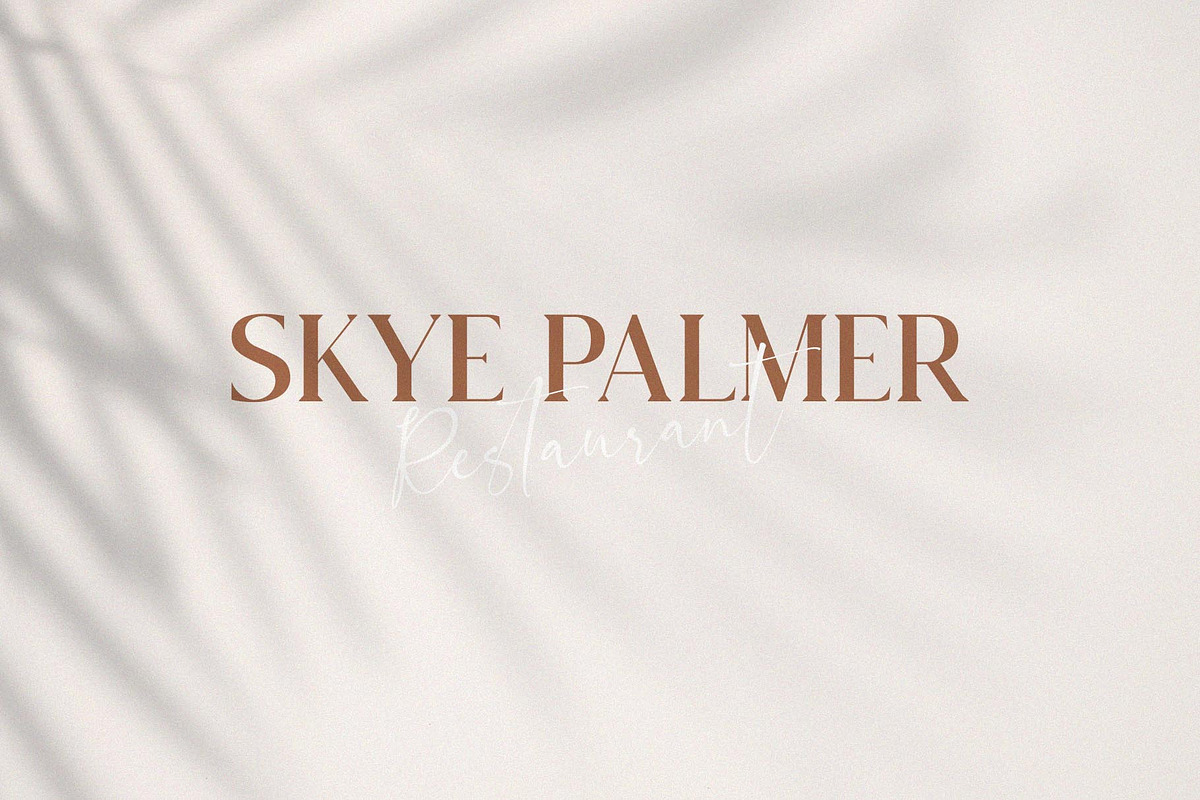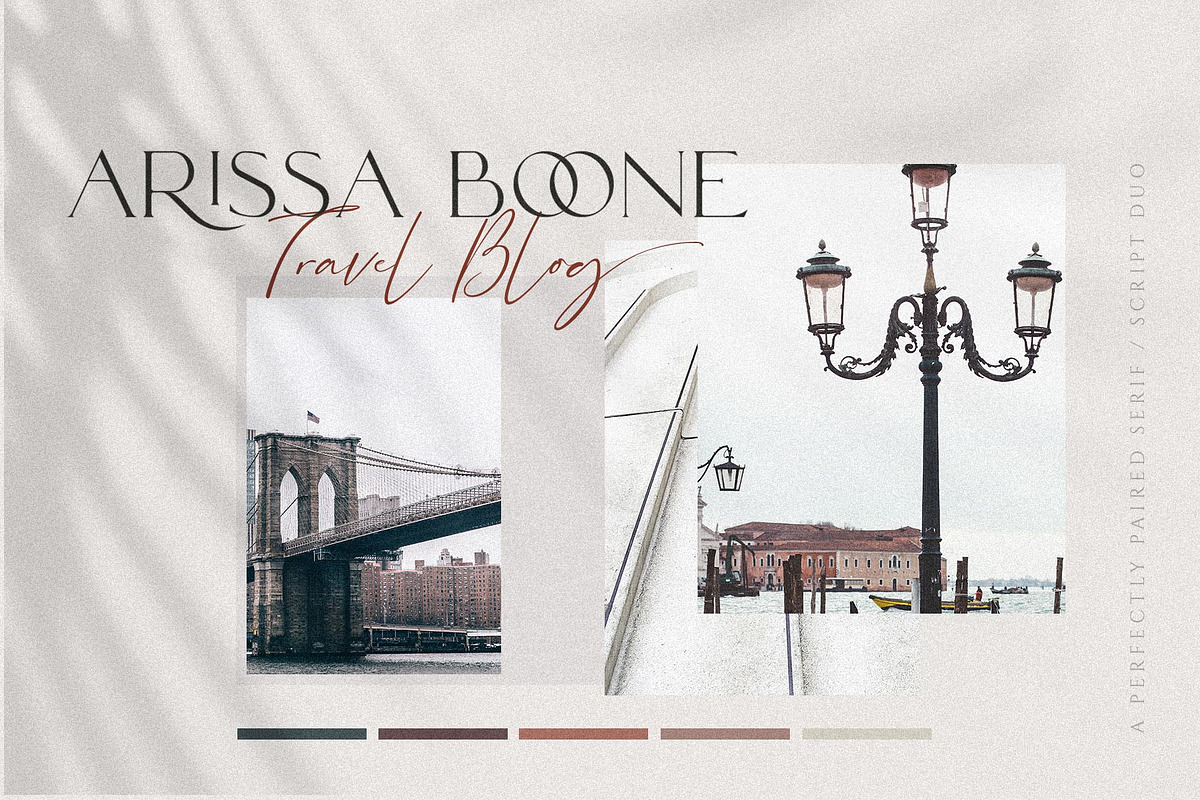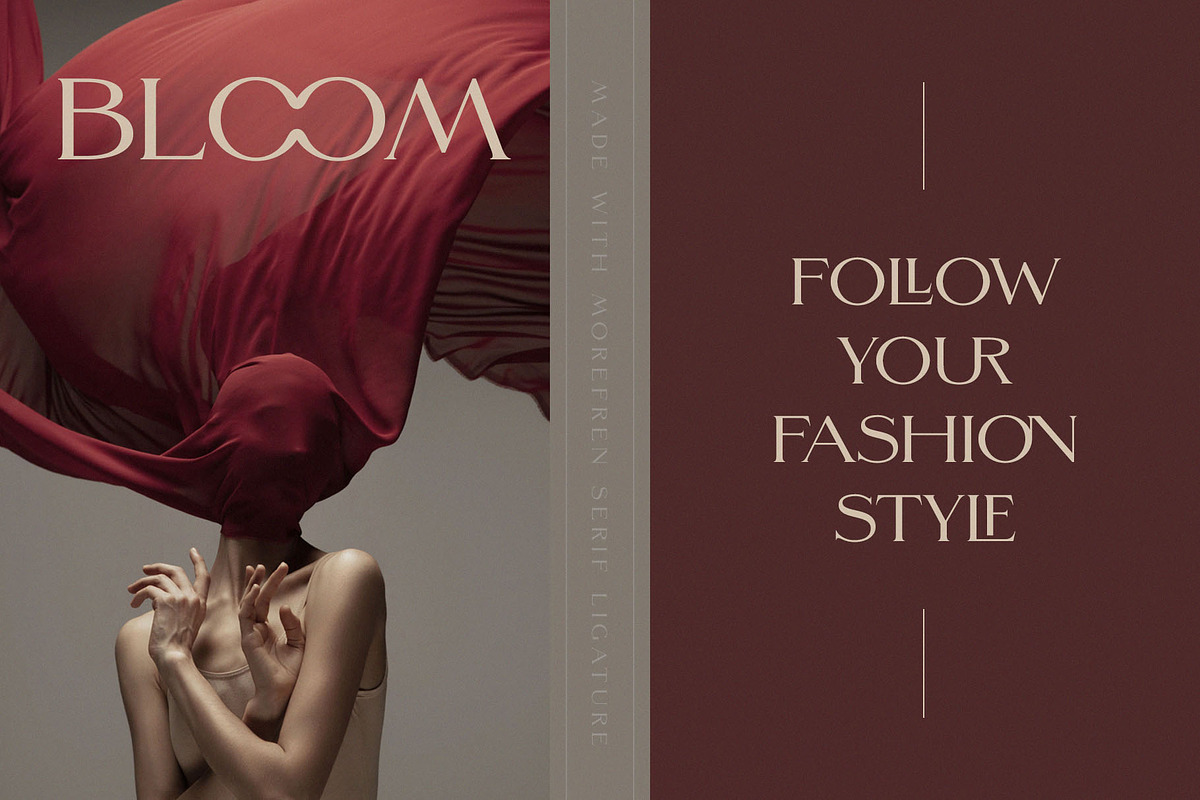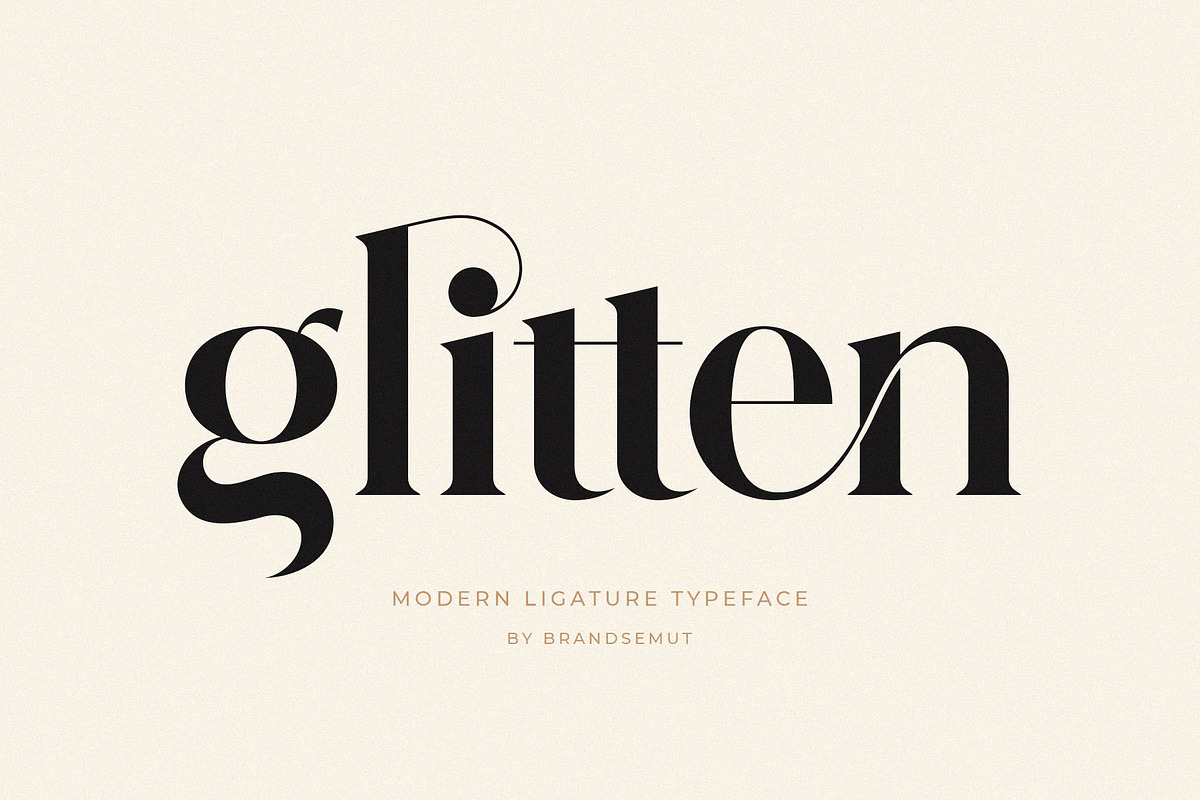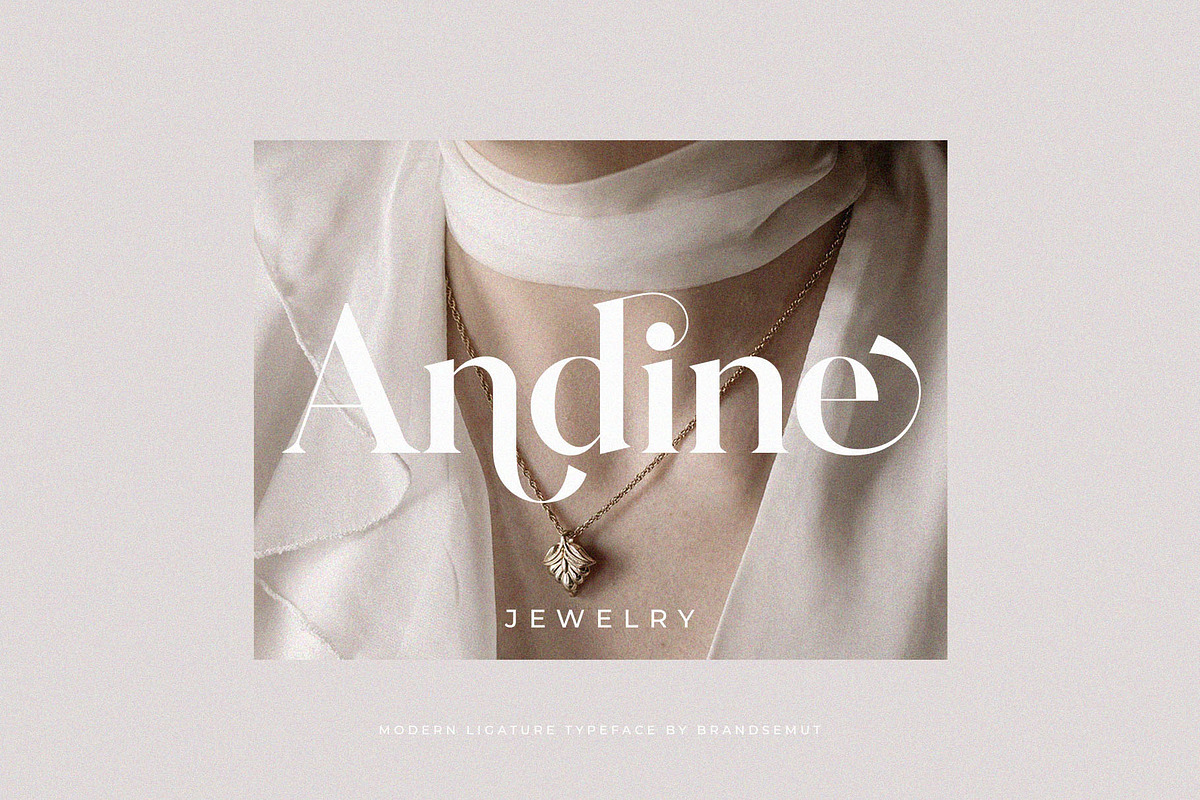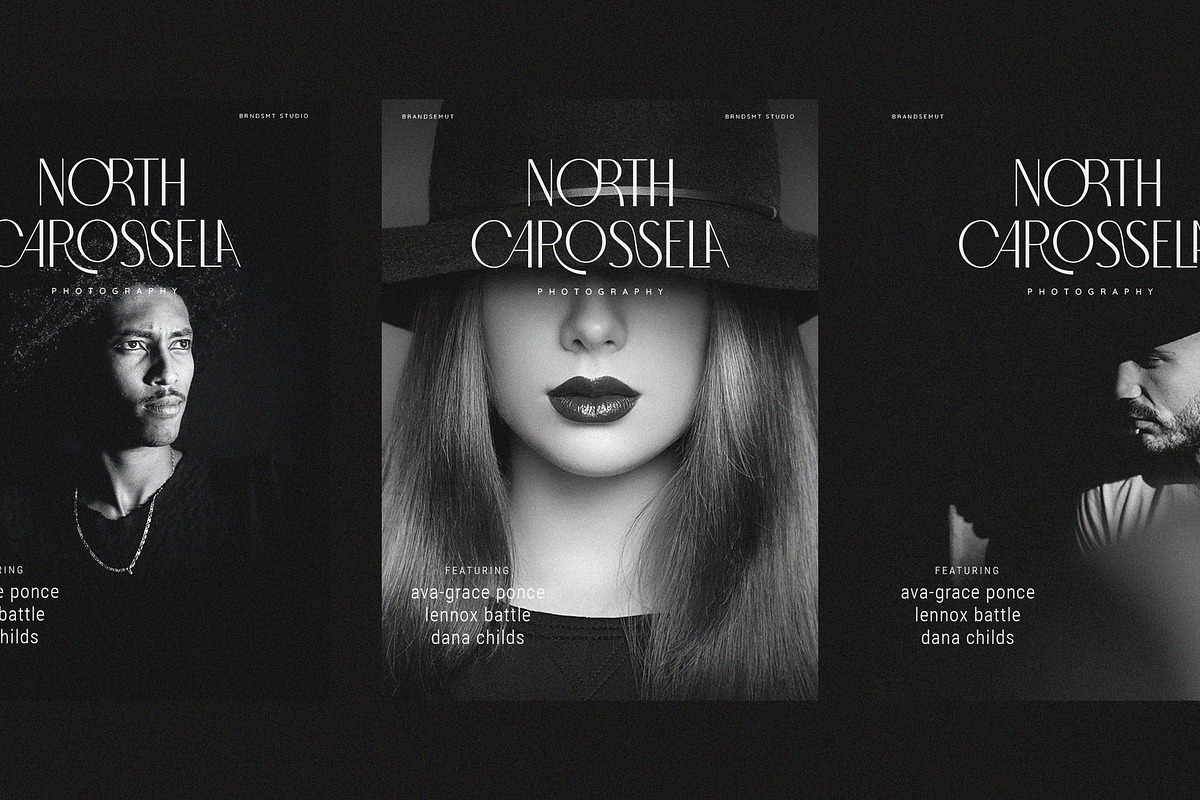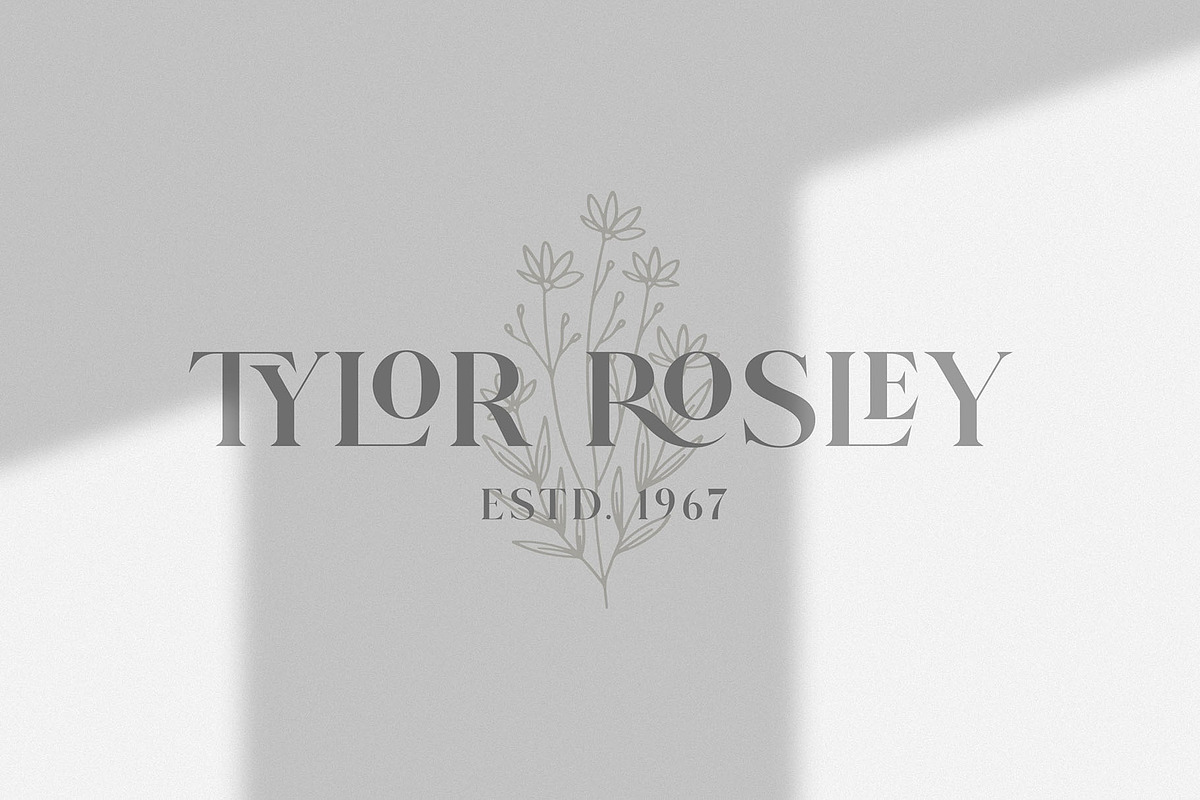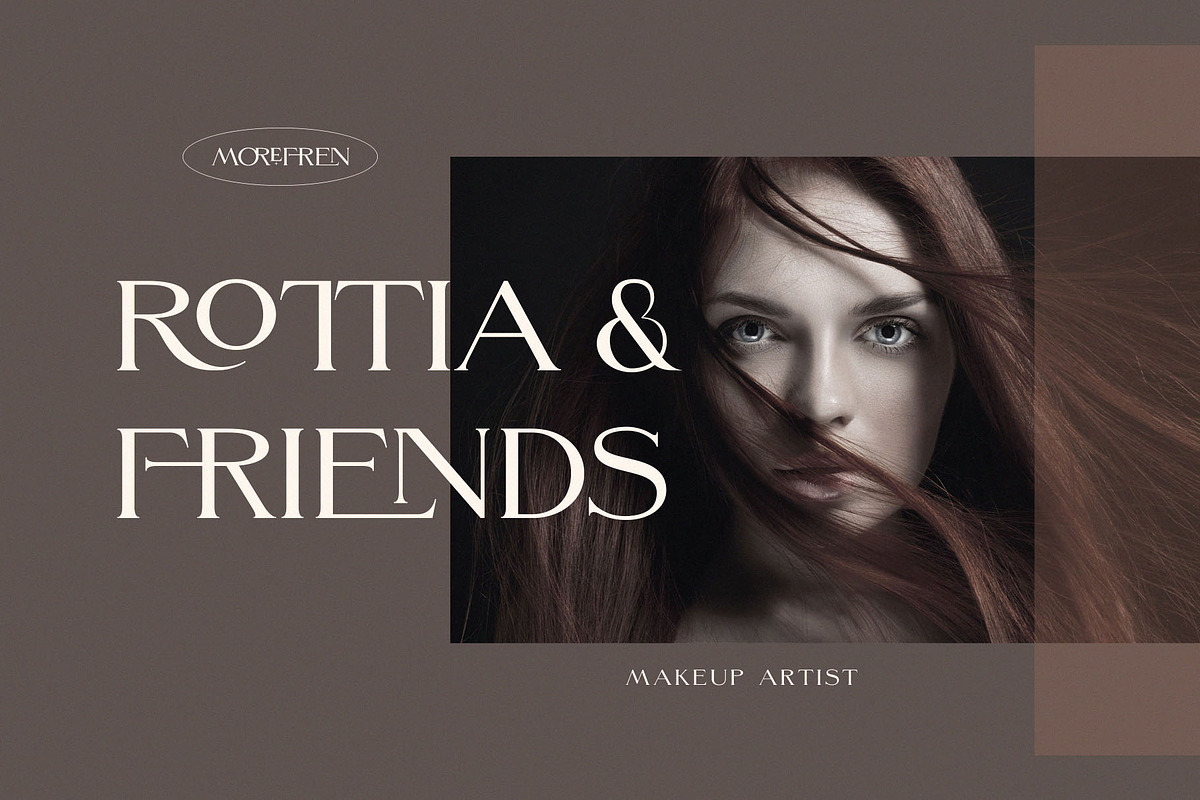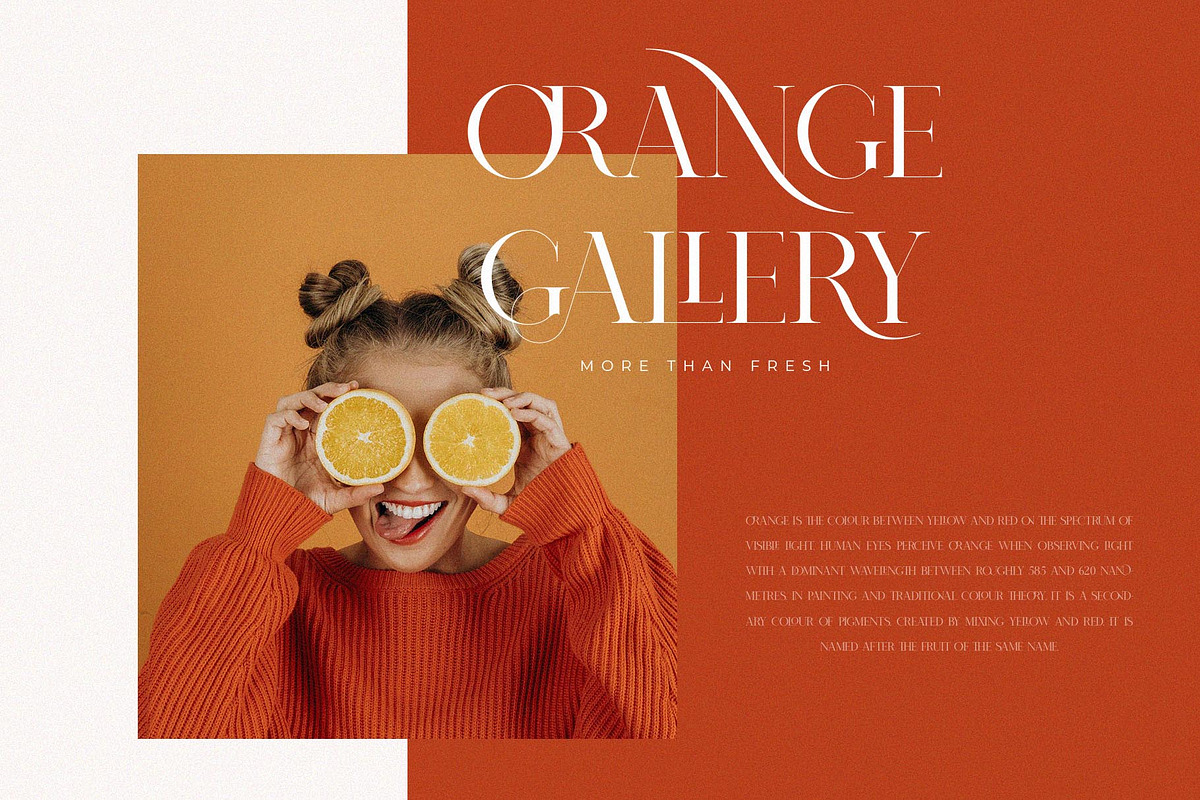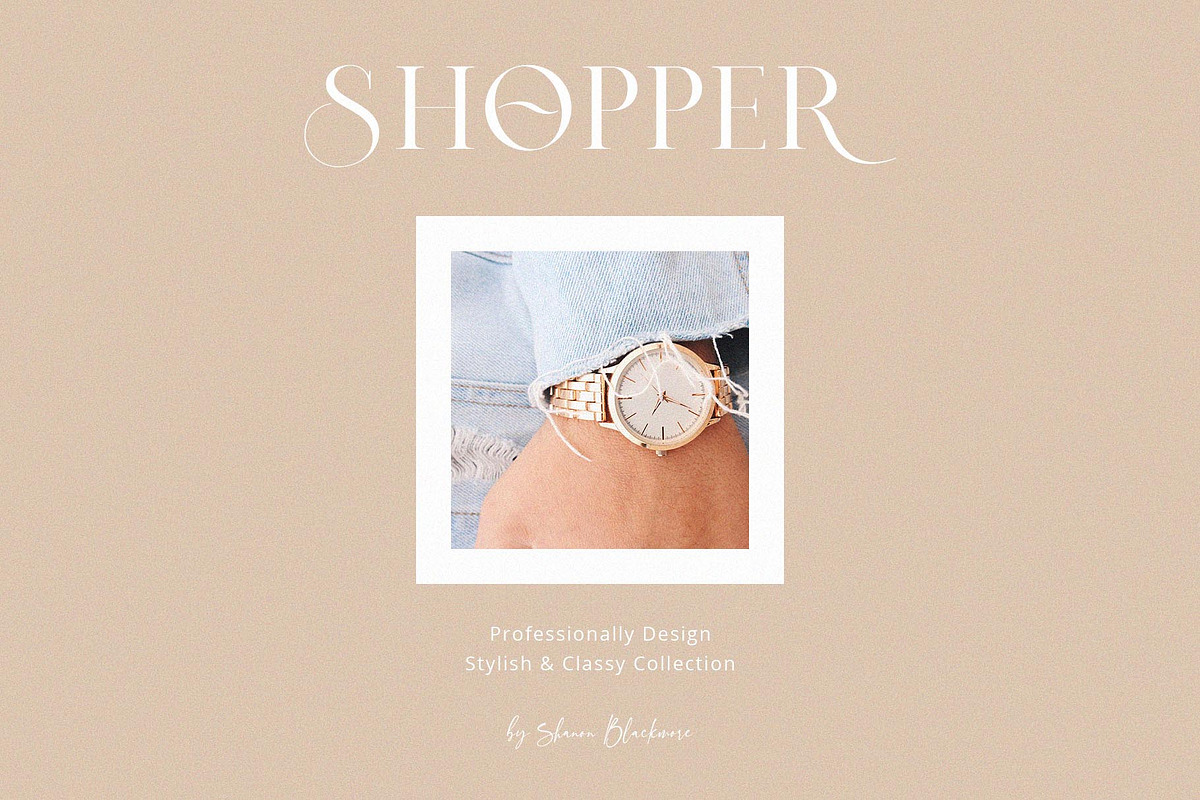
Ligature Font BUNDLE
WOW!!! NEW LIGATURE FONT BUNDLE - an incredible BUNDLE with the ligature font style and the duo font. Ligature font bundle is suitable font for many creative products & designs. Go ahead and make Branding, Logos, Blog, Social Media, Invites, Wedding, Poster, Magazine, Quotes, Packaging, Photo Overlays, Poatcard, Advertisements, Fshion and others. This bundle contain 8 items, with total 13 fonts inside.